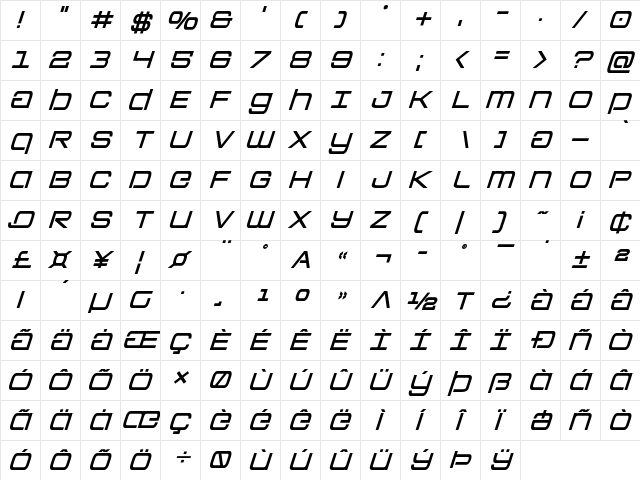
Colony Marines Semi-Bold Italic Font Preview
Design Context for Colony Marines Semi-Bold Italic Typeface
Colony Marines Semi-Bold Italic takes a measured approach to typography — its balanced proportions and neutral character make it a reliable workhorse for both digital and print work. Its italic angle brings a sense of urgency and motion to the letterforms. Its bold stroke weight gives it real presence on the page.
Pro Tip: Use Colony Marines Semi-Bold Italic for emphasis, pull quotes, and subheadings where its slanted energy can add rhythm to the layout.